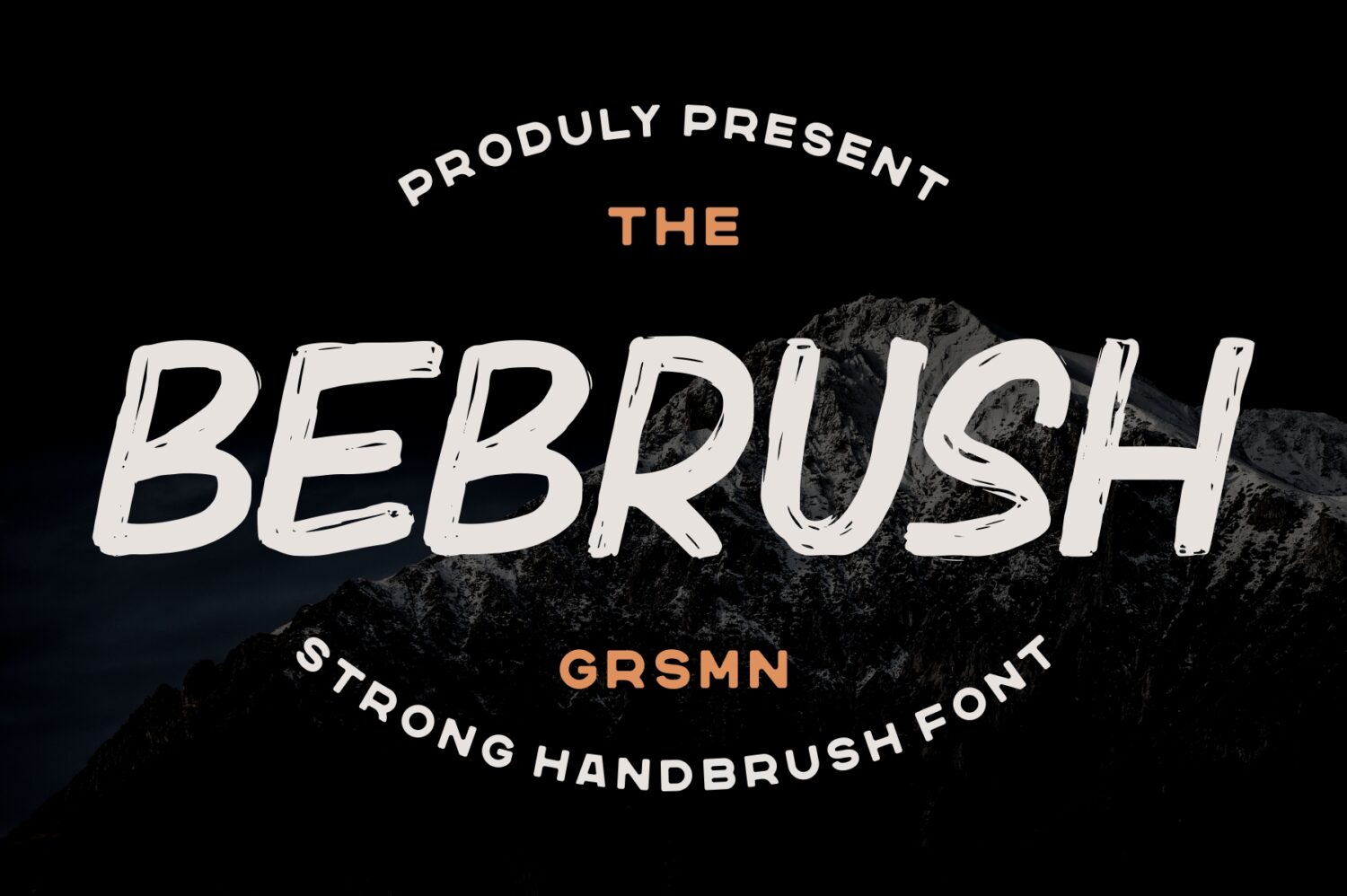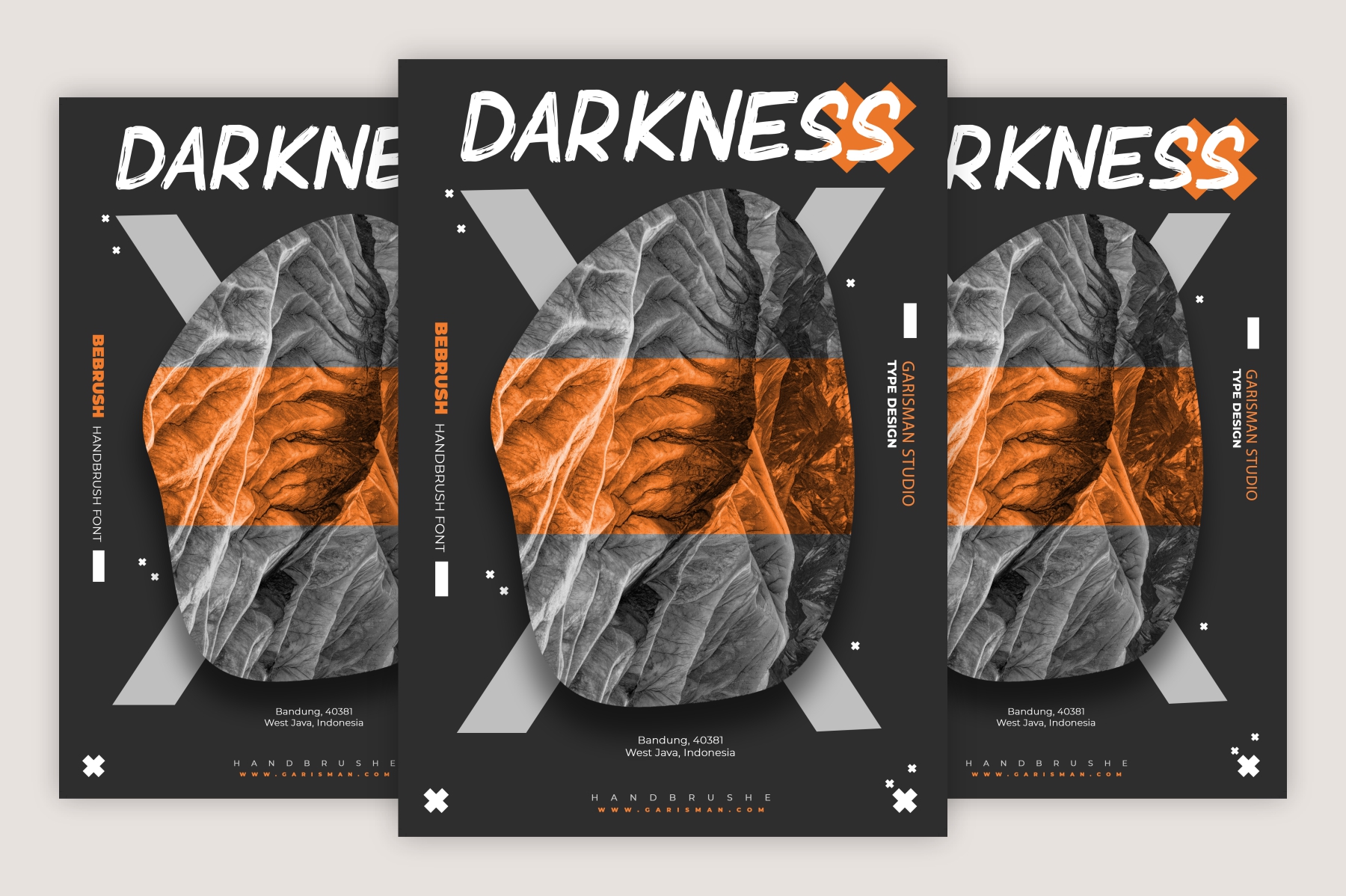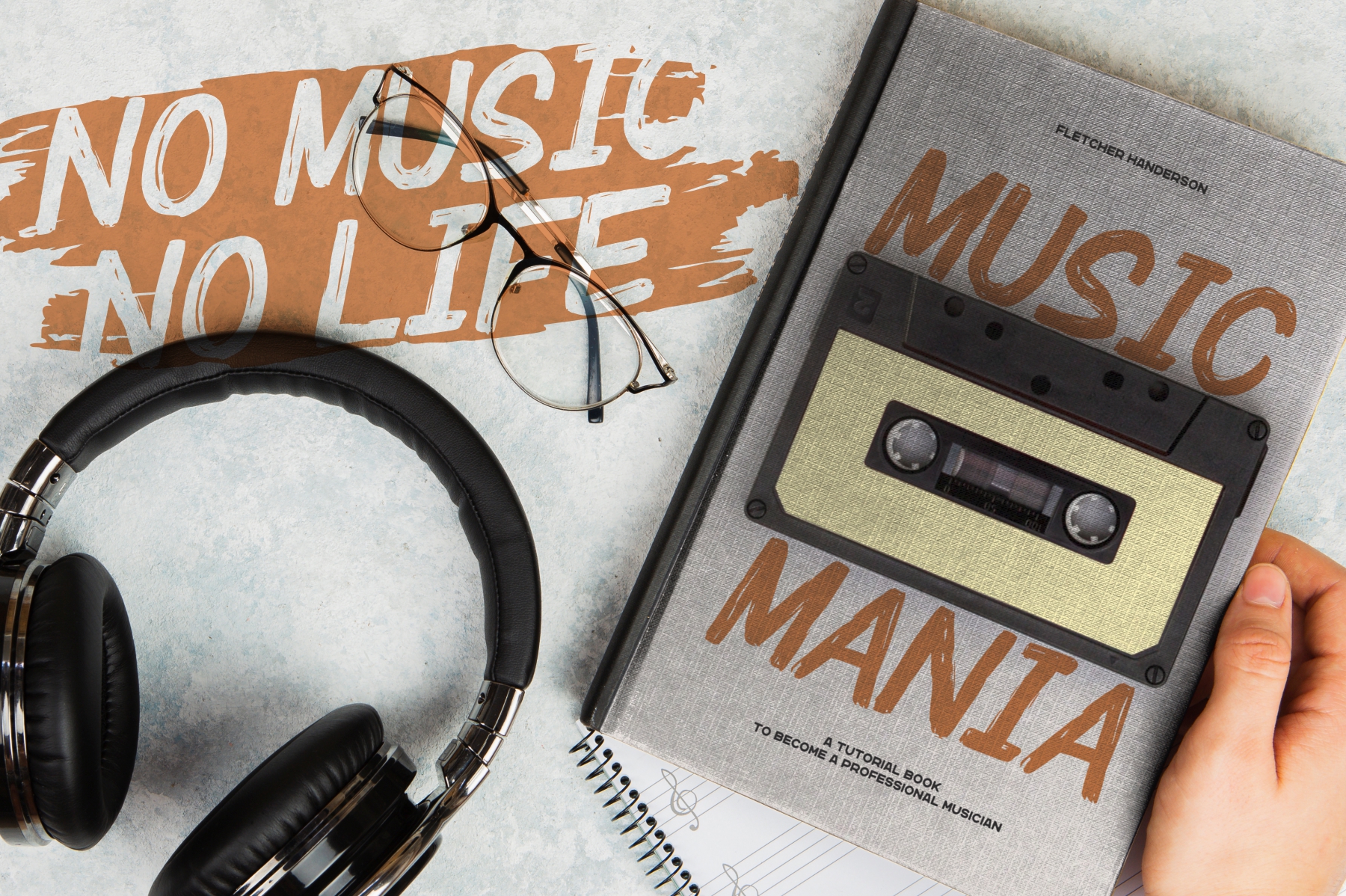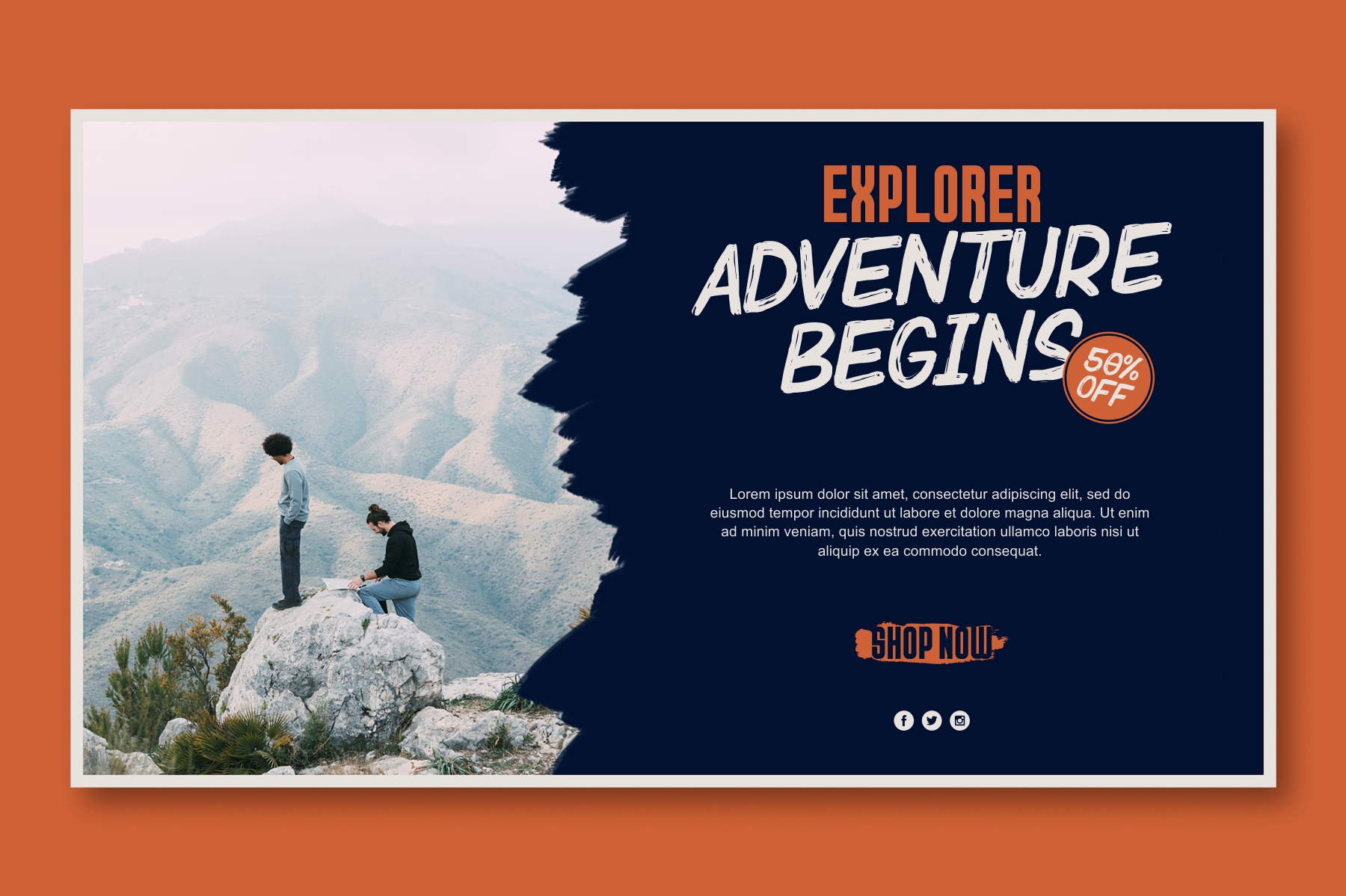
Bebrush Free Font
Bebrush Free Font combines attractive curves with a fresh urban edge; delivering a stylish brush that is guaranteed to add an eye-catching appeal to your logo designs, brand imagery, handwritten quotes, product packaging, merchandise, social media post, or website font. This typeface is a good choice for your project. This free typeface was designed by a talented Garisman Studio. If you like it don’t forget to check out the full version.